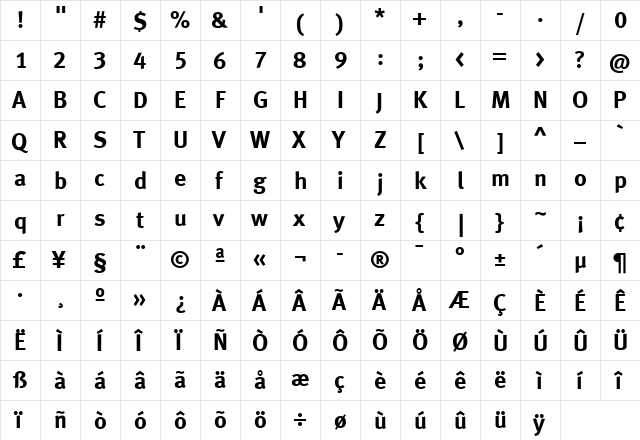
MetaBoldTurkLF Roman
Design Context for MetaBoldTurkLF Typeface
MetaBoldTurkLF takes a measured approach to typography — its balanced proportions and neutral character make it a reliable workhorse for both digital and print work. The heavy weight commands attention and anchors typographic hierarchies.